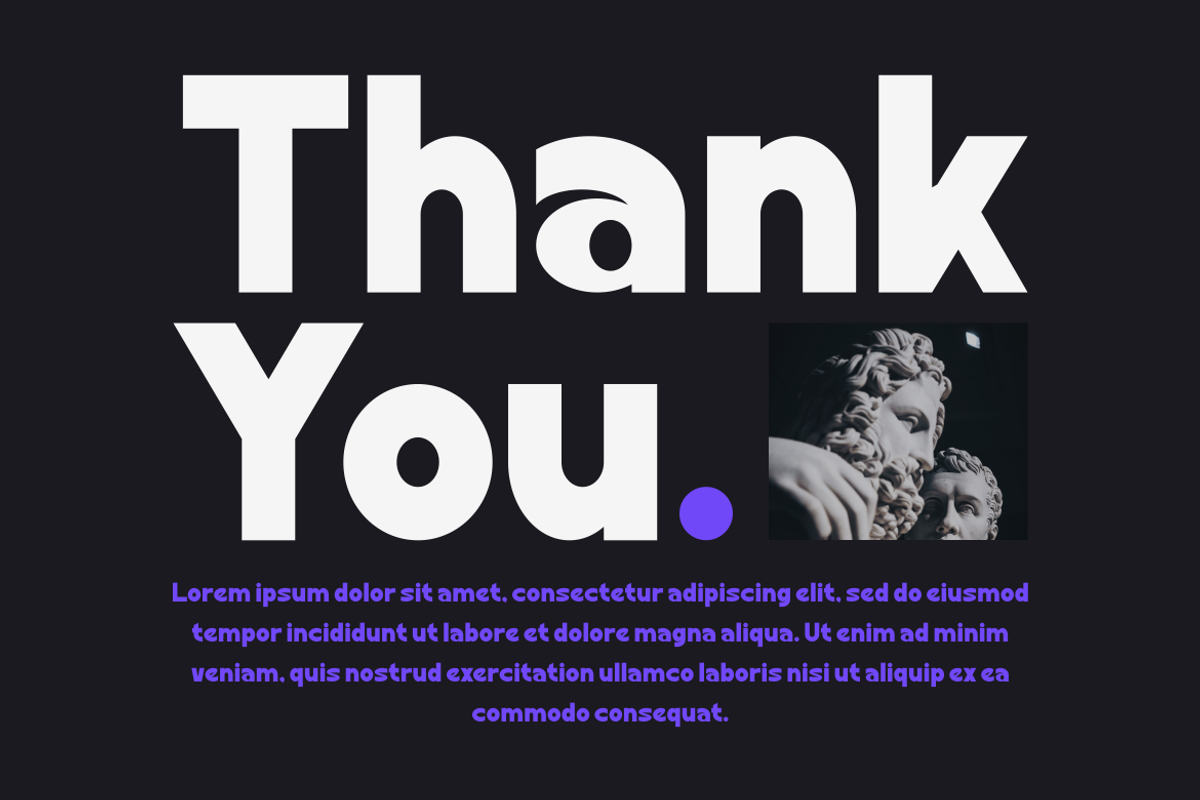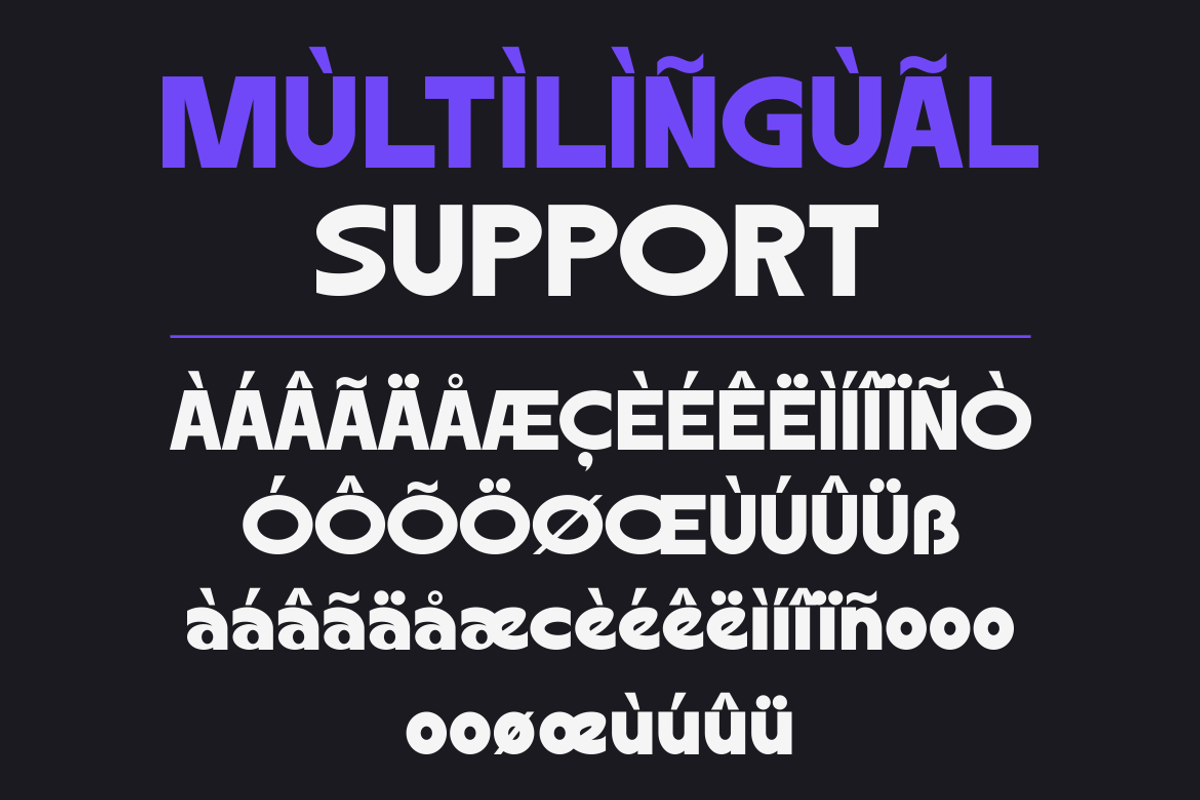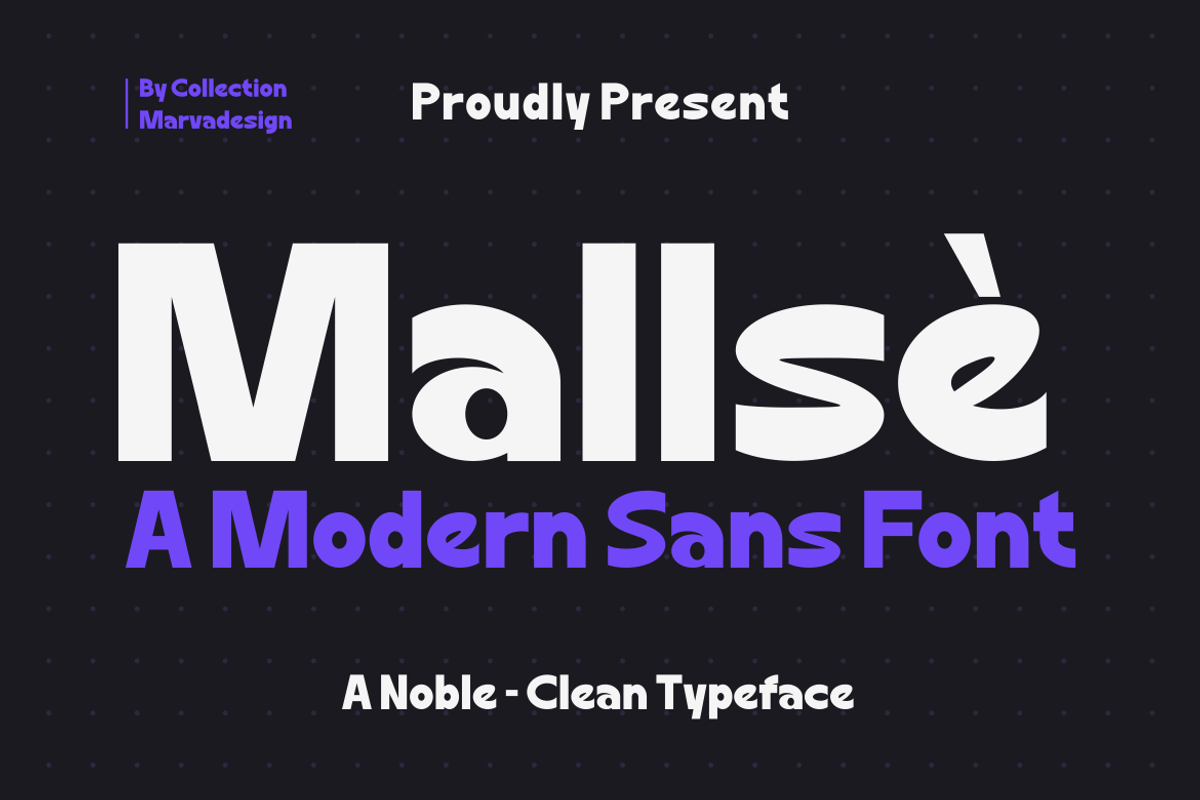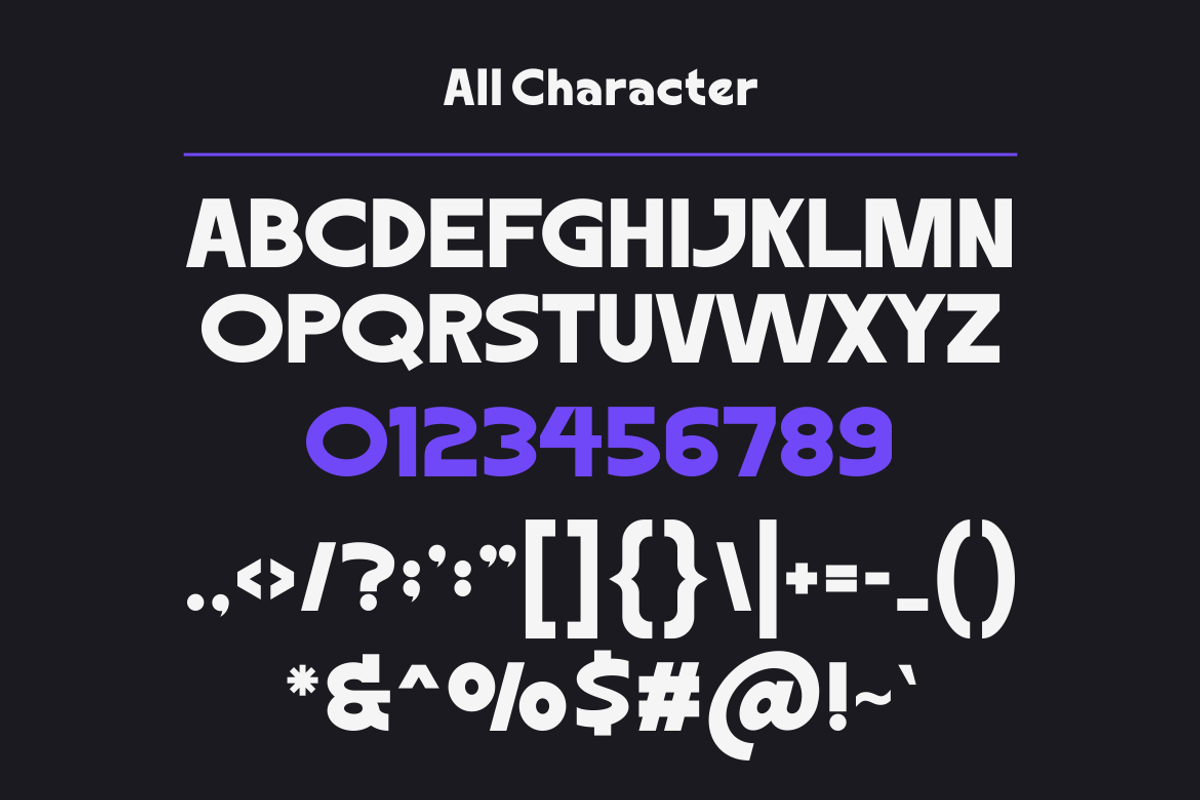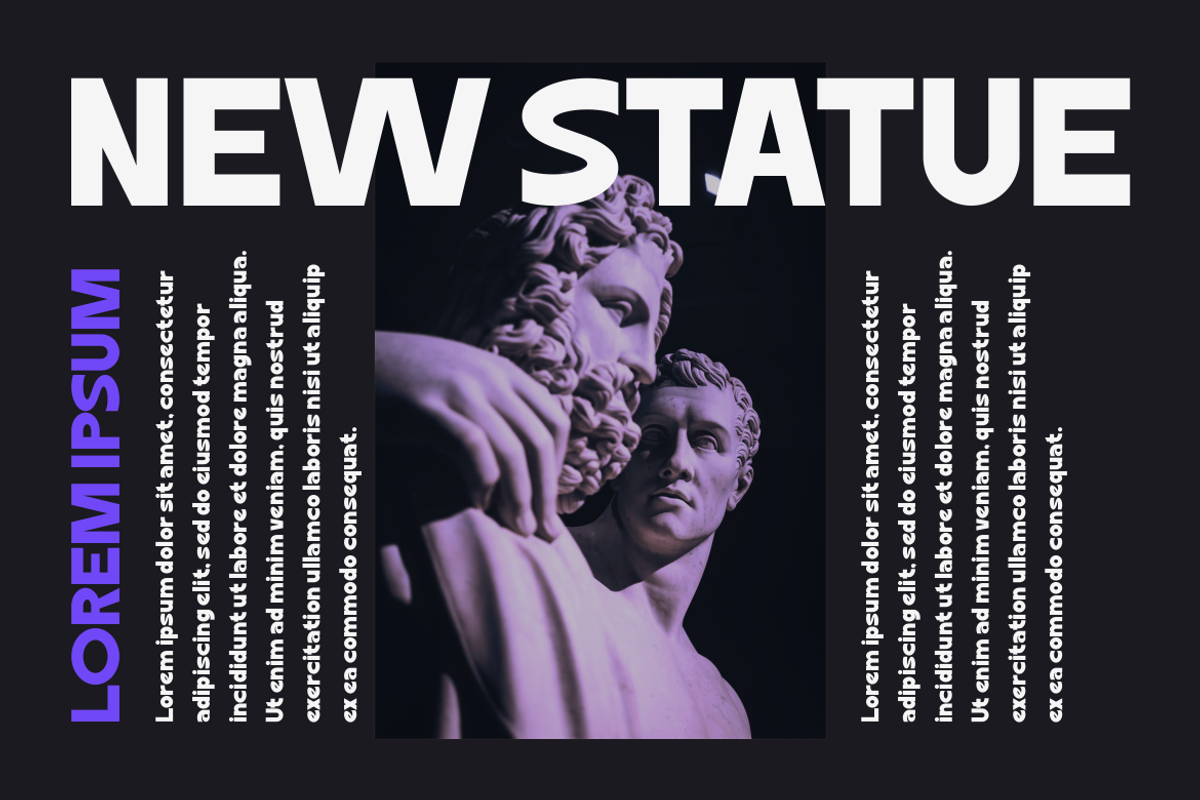
Mallse - A Modern Sans Serif Font
Introducing our new product SANGUARD Font - Modern Font SANGUARD Font** - Modern Font is a bold and authentic display font. The font is suitable for any branding project like logo,Template , Product and many more. outstanding in a wide range of contexts.